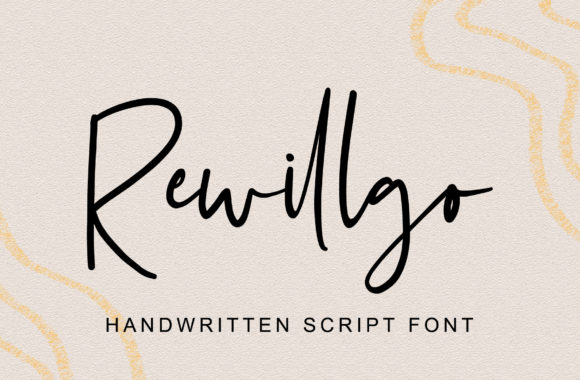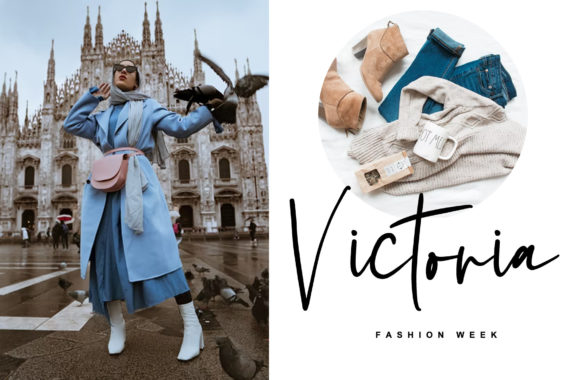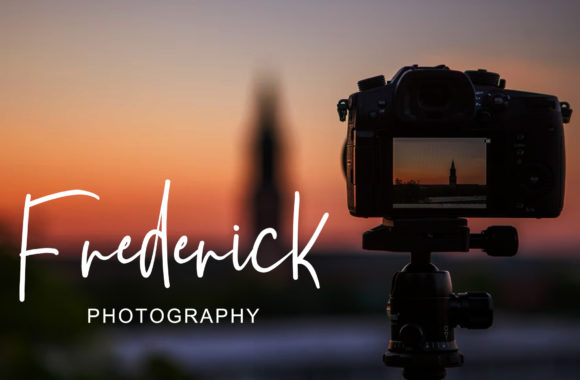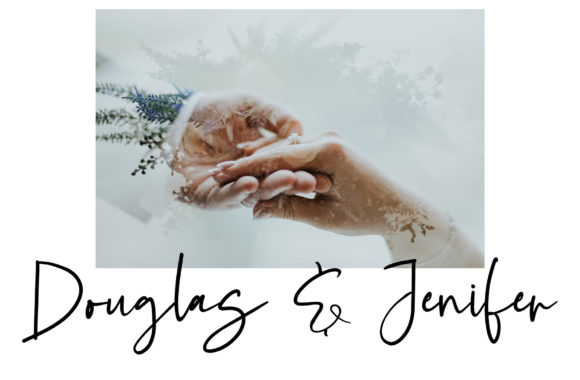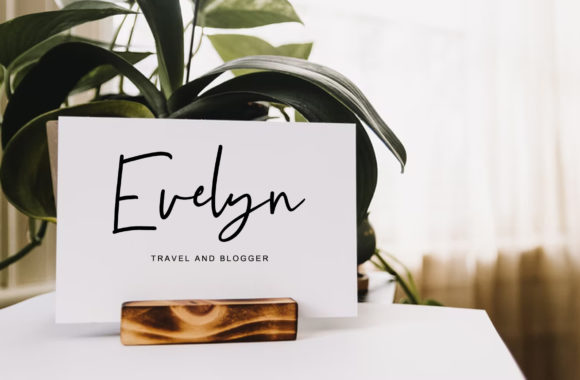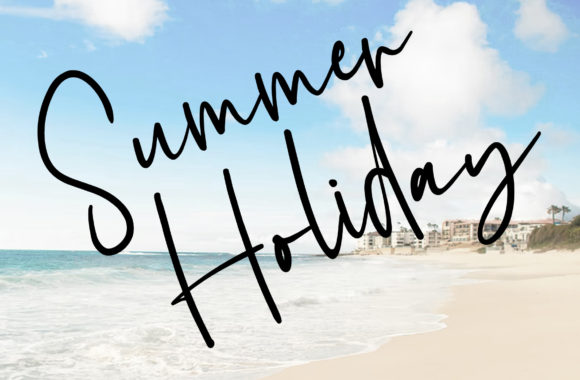
About Rewillgo Script Font
Rewillgo is a unique and asymmetrical handwritten font. It is the perfect font for any design project needs and creations. Add it confidently to your projects, and you will love the results.